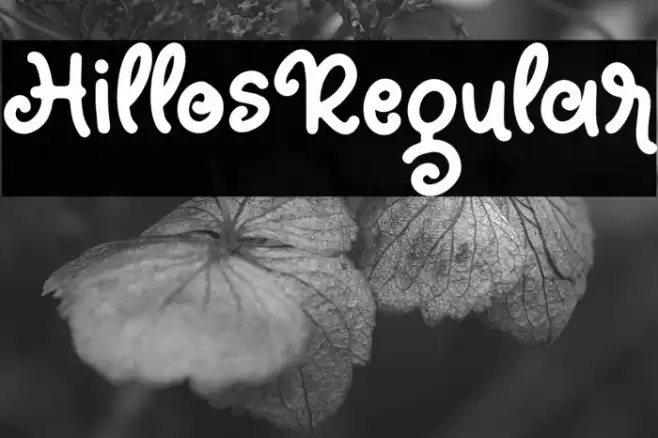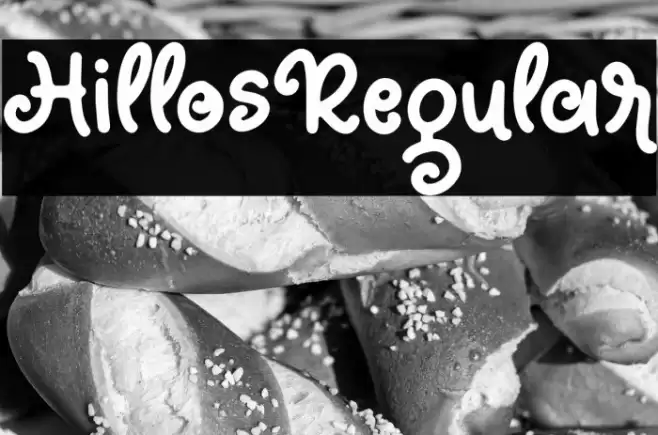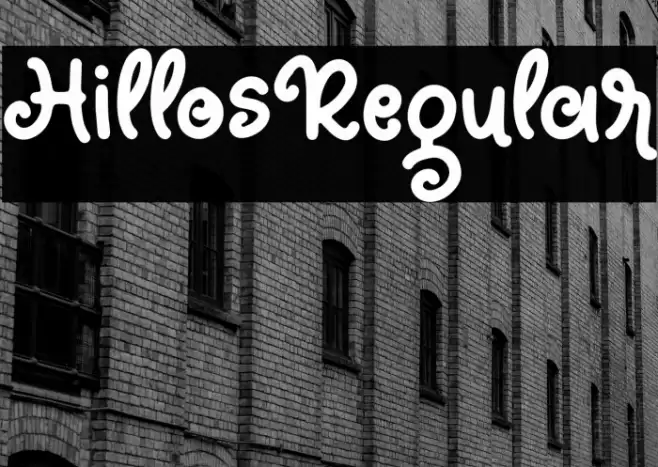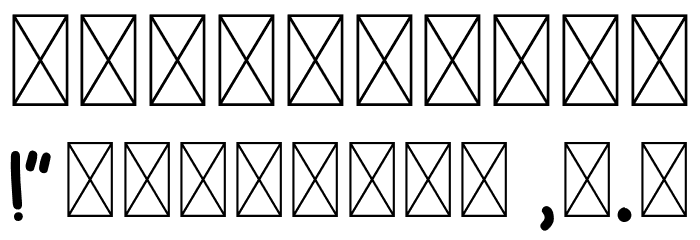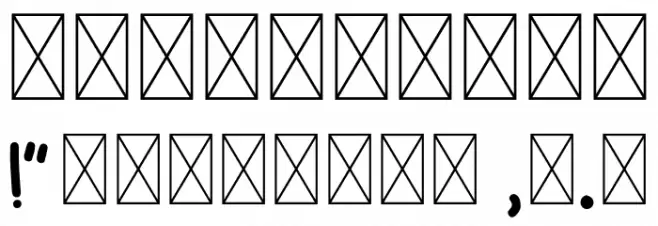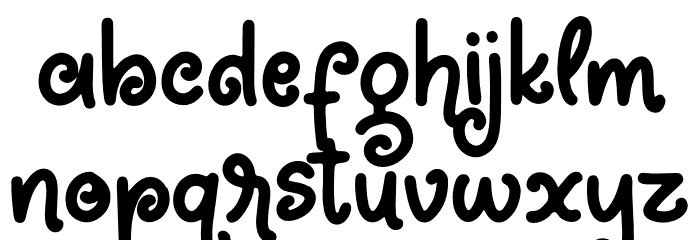
HillosRegular Font
HillosRegular Description
This font features a playful and whimsical style, characterized by its bold and rounded letterforms. The uppercase letters exhibit a consistent height with slight variations in width, adding a dynamic flow to the text. The lowercase letters maintain a similar playful aesthetic, with some characters like 'g' and 'j' having distinctive loops and curls. The font's overall appearance is casual and friendly, making it suitable for informal and creative projects. The spacing between characters is relatively tight, which enhances its cohesive look. The absence of sharp edges and the presence of smooth curves contribute to its approachable and lively feel.
A playful, bold, and rounded font with a whimsical style from Curly fonts.
- Proposed Projects: Ideal for children's books, playful branding, greeting cards, and creative posters.
- Character Spacing: Tight
- Overall Style: Playful